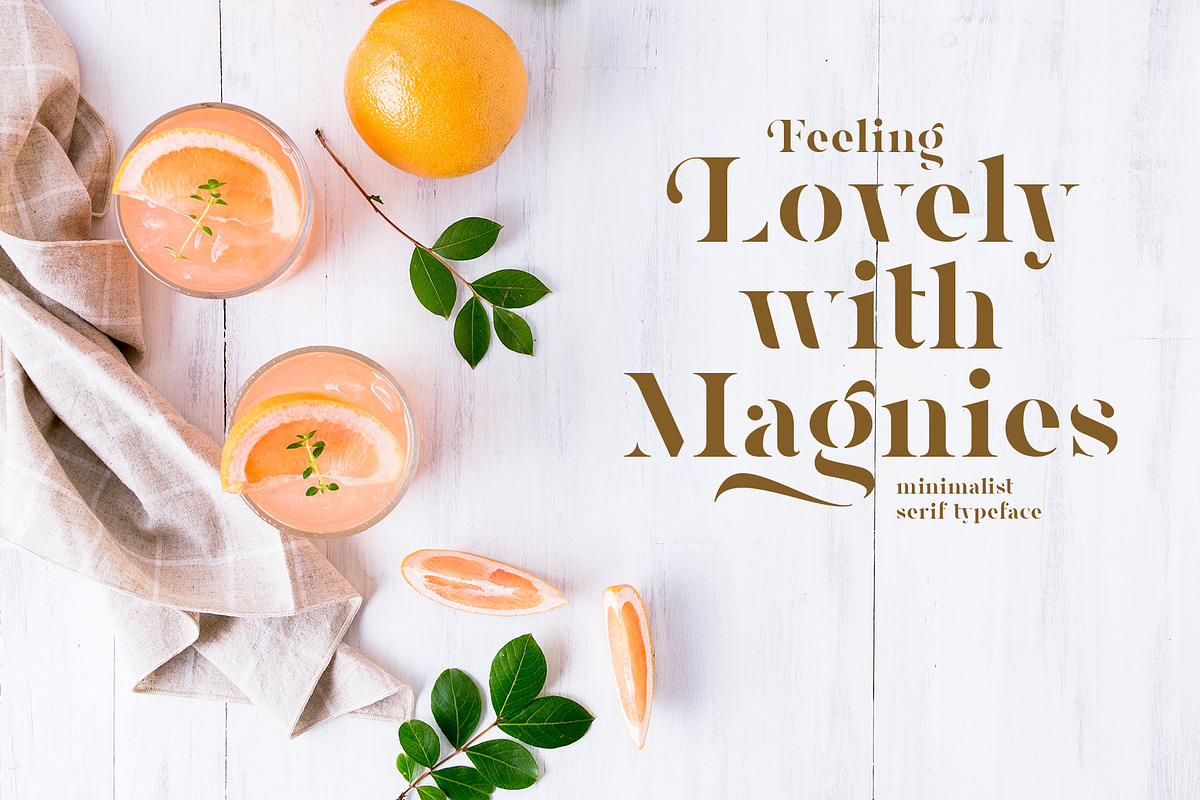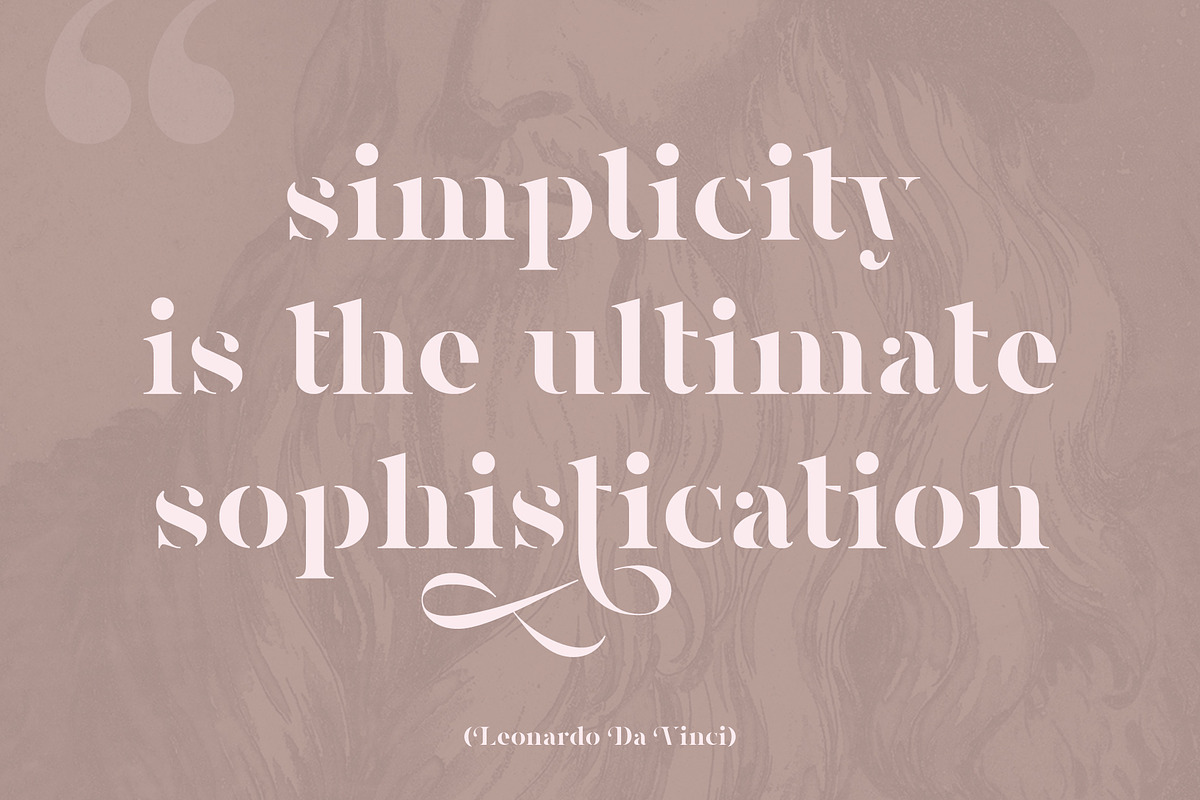
Magnies - Minimal Serif
Feel the sweetness with Magnies, a minimalist serif font with clean stencil looks. The feminine letterforms which are perfect for logotype, fashion, and display.
Magnies was designed with a high contrast of the strokes and cut the thinner line to get the optical effect but still keep the legibility. Great choice with over 100+ alternates characters, that you can create many variations for your design.
- Symbol
- Contextual Alternates
- Stylistic set 01 - 05
- Accents